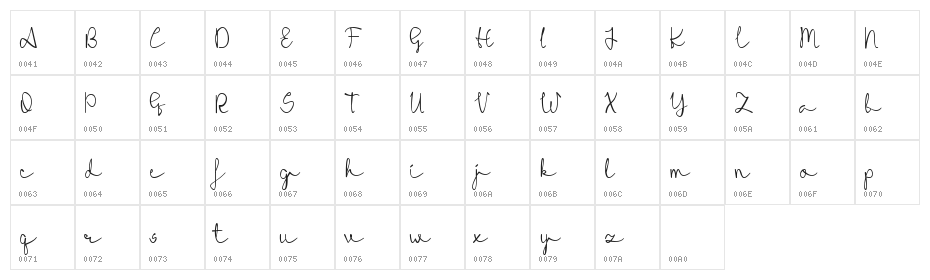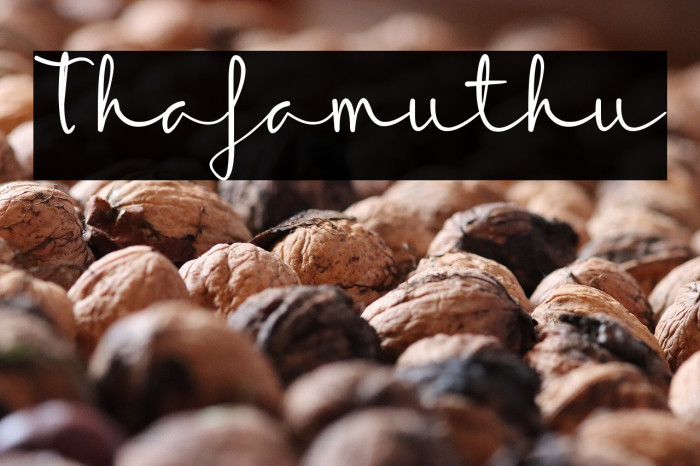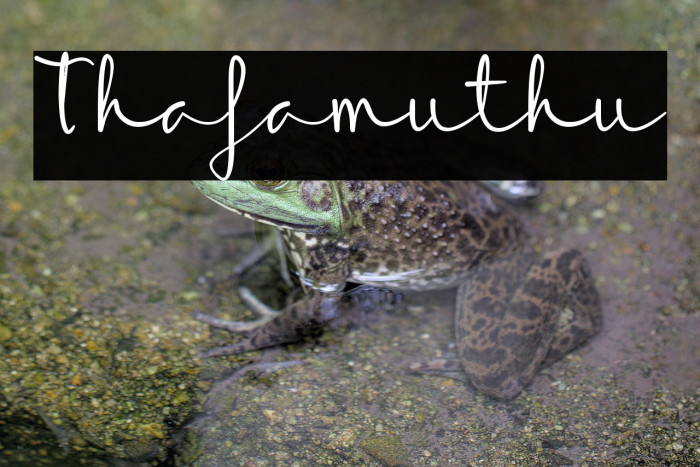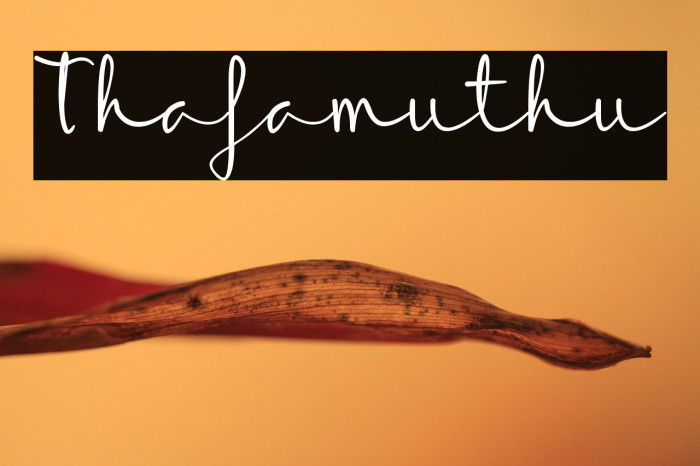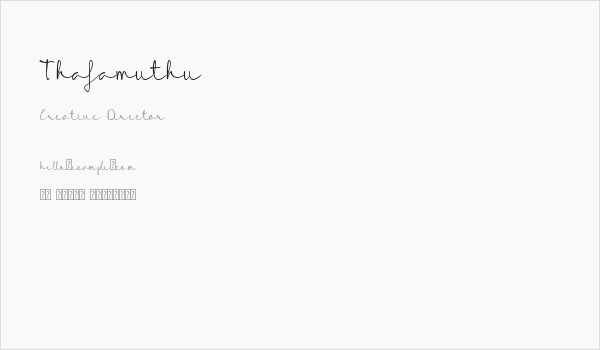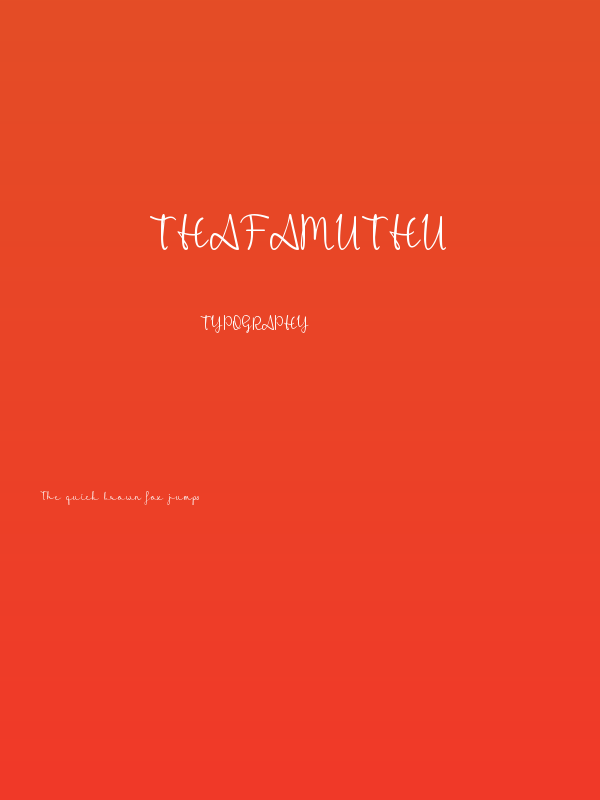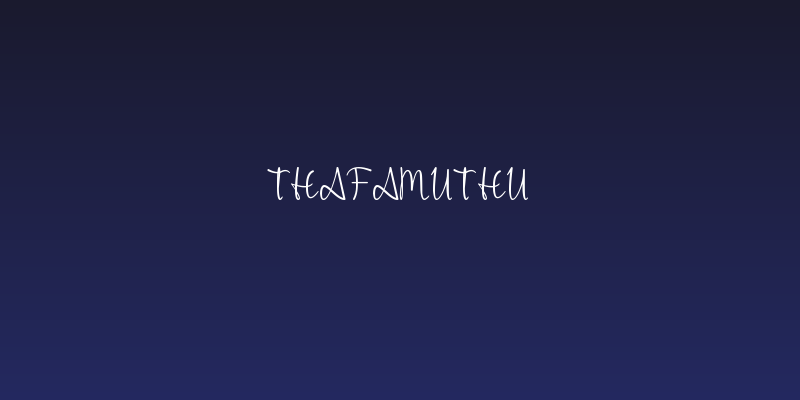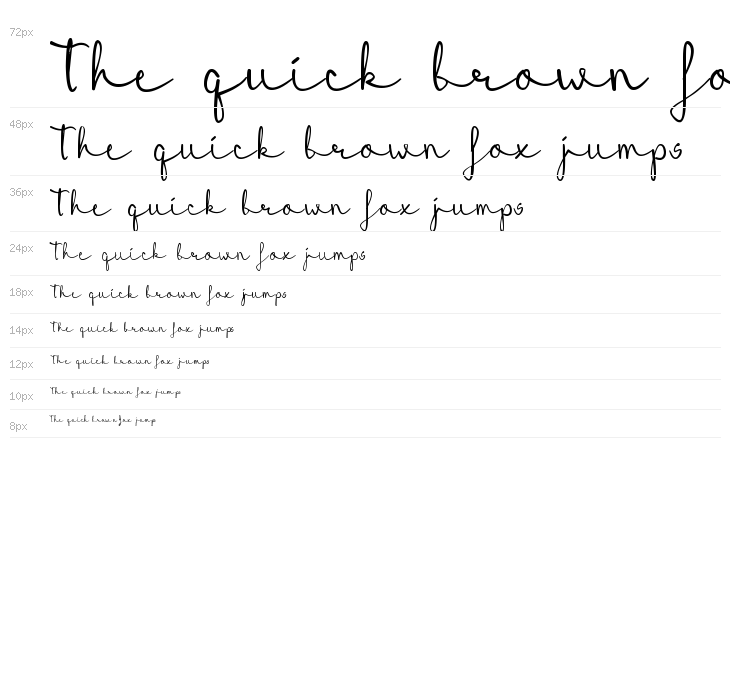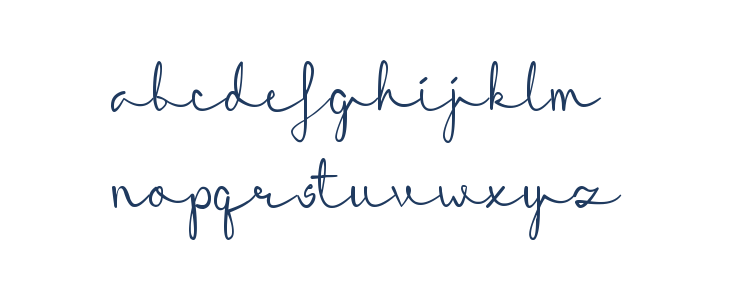
Thafamuthu Font
Thafamuthu Description
This font features a playful and elegant handwritten style, characterized by its flowing and connected letterforms. The uppercase letters exhibit a whimsical flair with varying stroke widths, while the lowercase letters maintain a consistent, smooth flow that enhances readability. The numbers and special characters are crafted with the same attention to detail, ensuring a cohesive look across all characters. The font's design is both modern and timeless, making it versatile for various applications. Its unique style is suitable for projects that require a personal touch or a creative edge.
| Proposed Projects | Ideal for wedding invitations, greeting cards, branding, and social media graphics. |